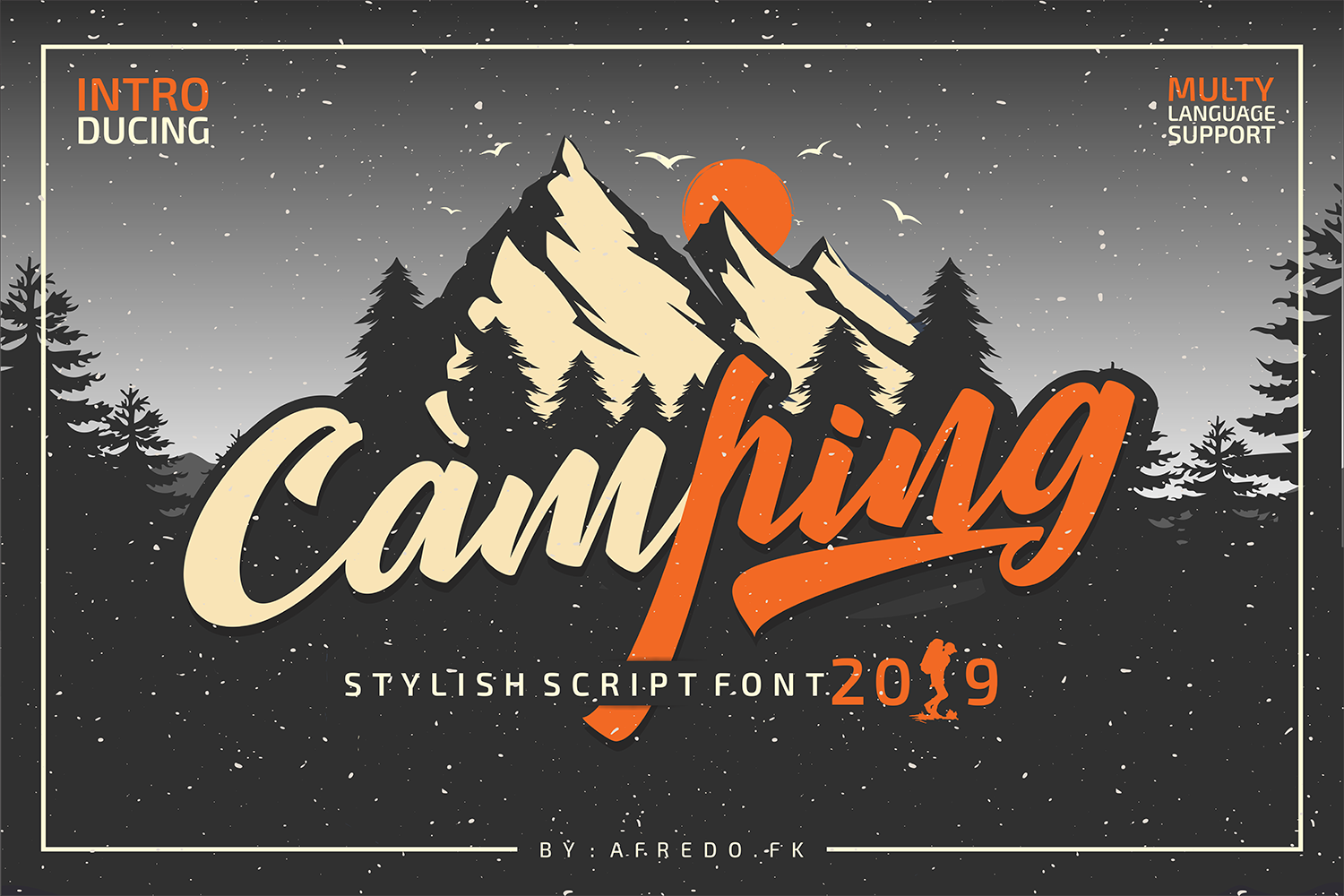
Camping Font Script
Camping
Camping a new fresh & modern script with a handmade calligraphy style, decorative characters and a dancing baseline! So beautiful on invitation like greeting cards, branding materials, business cards, quotes, posters, logo and more!!
Camping :